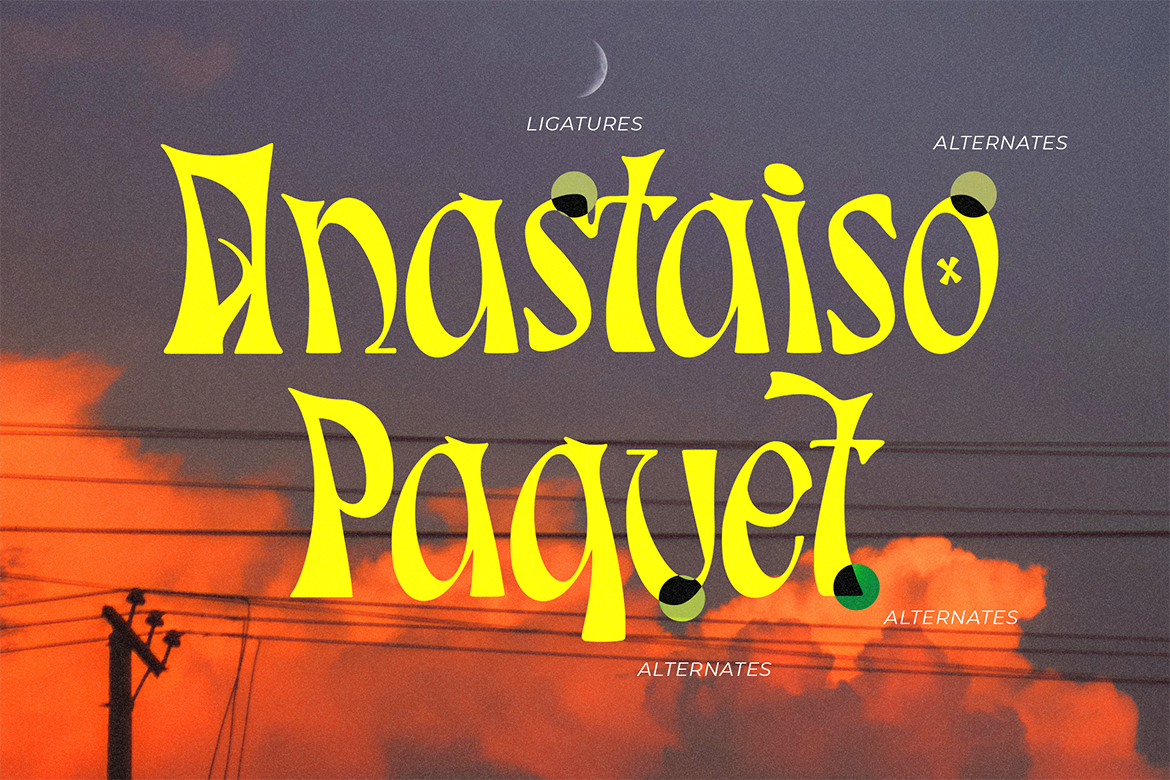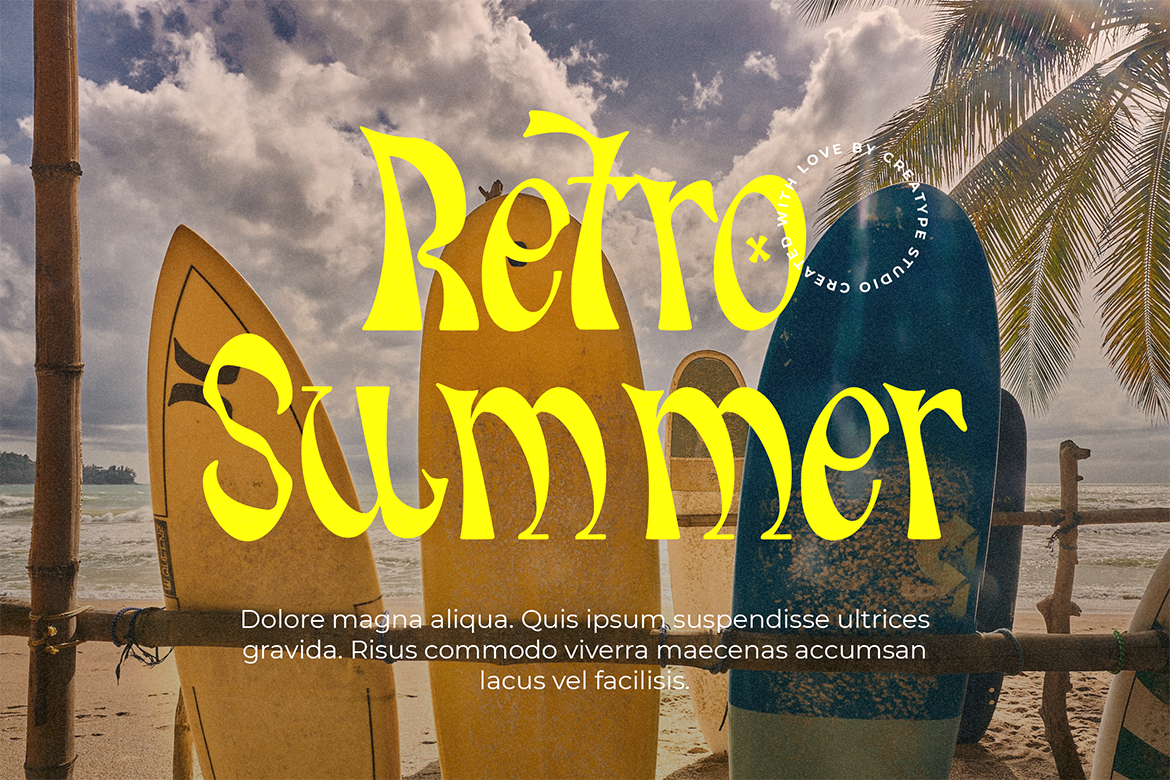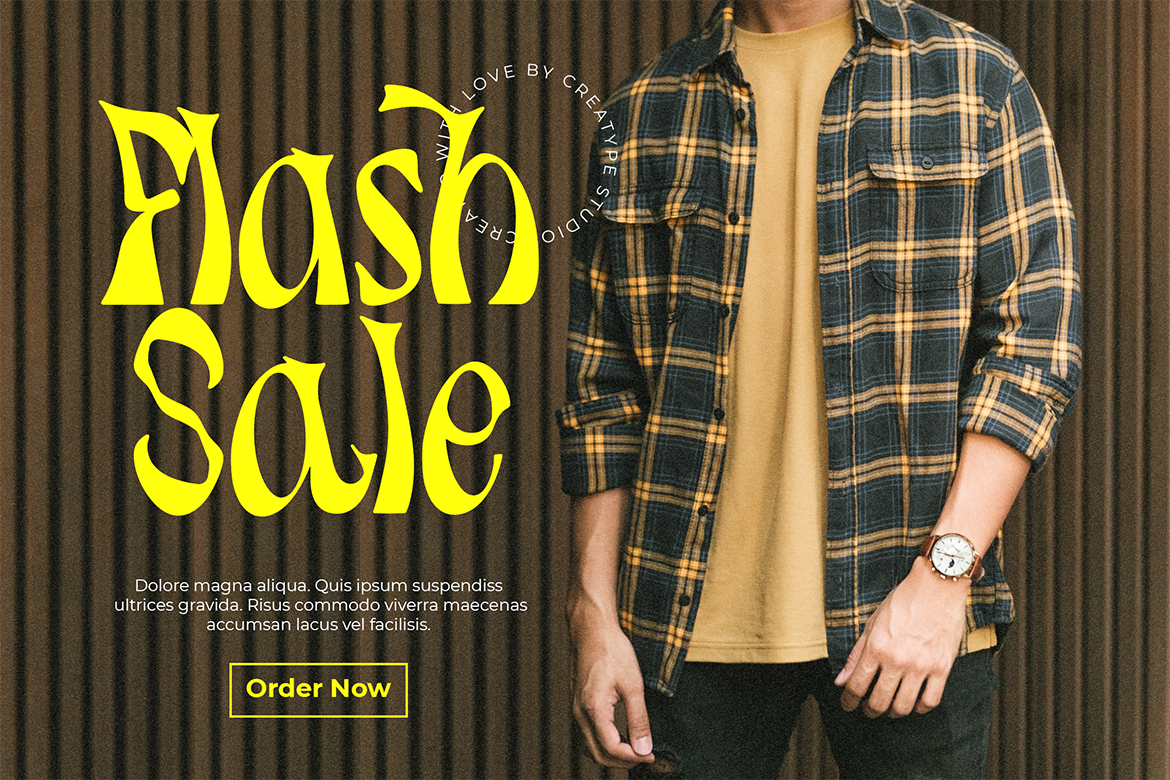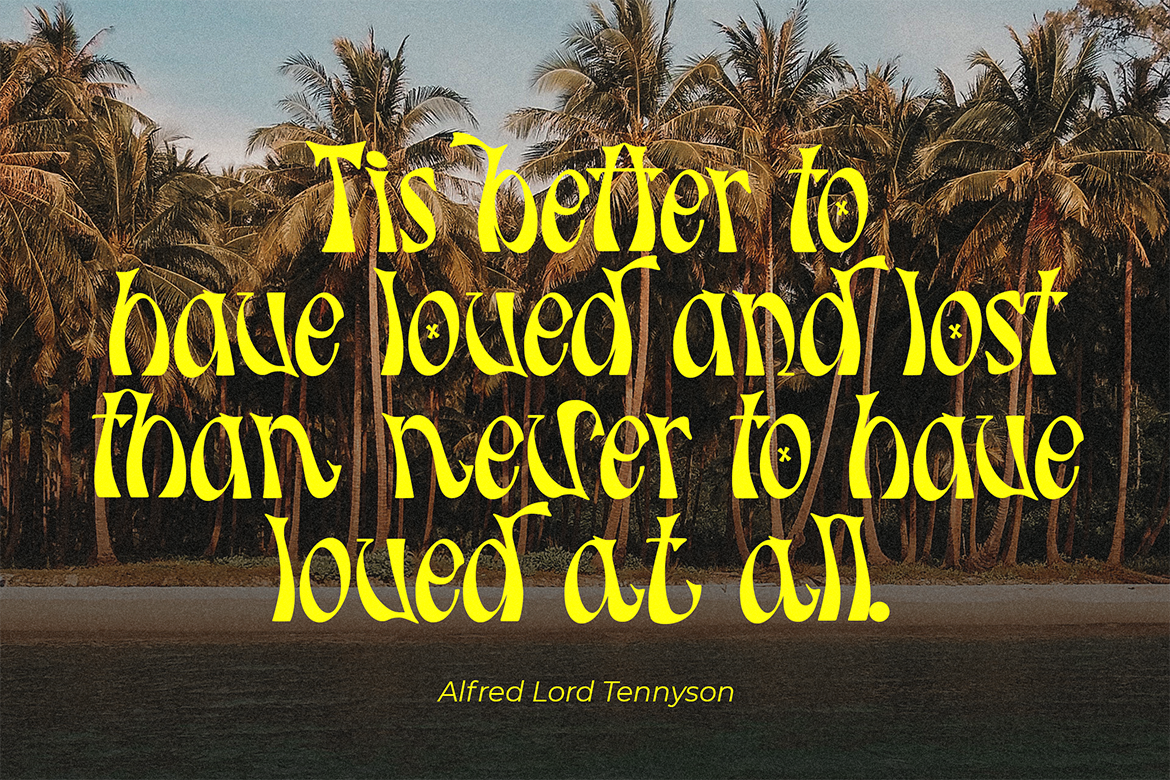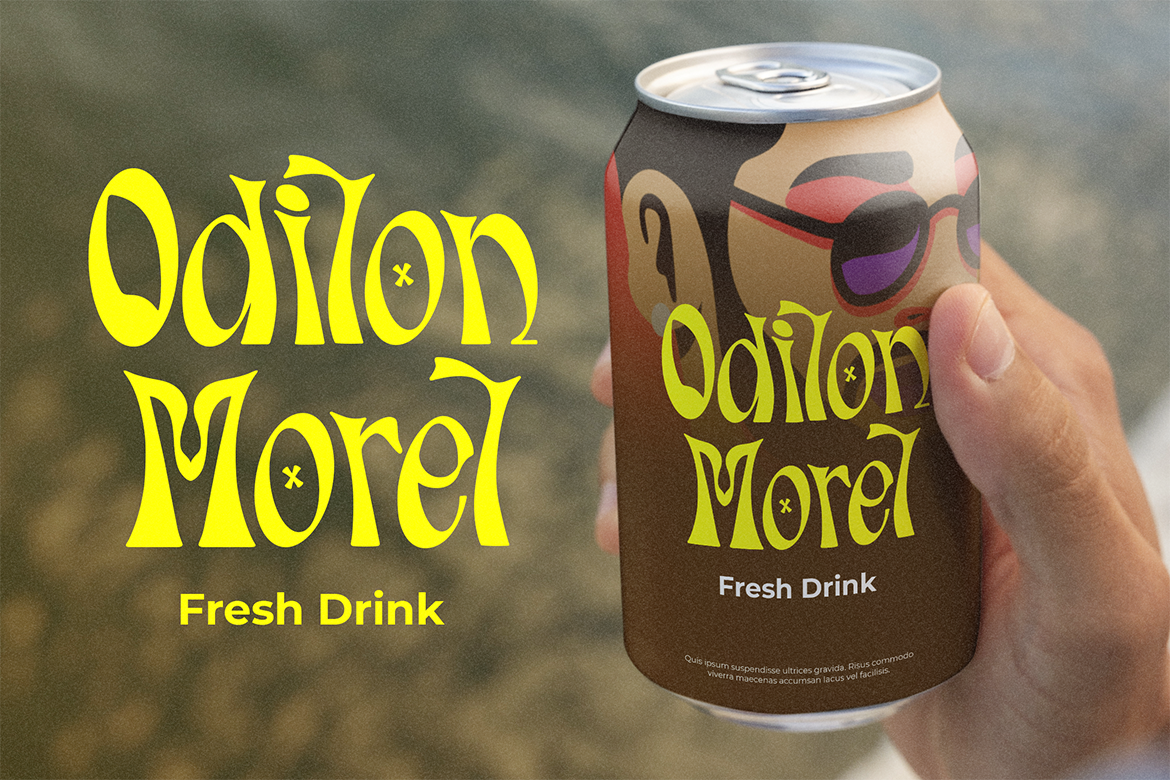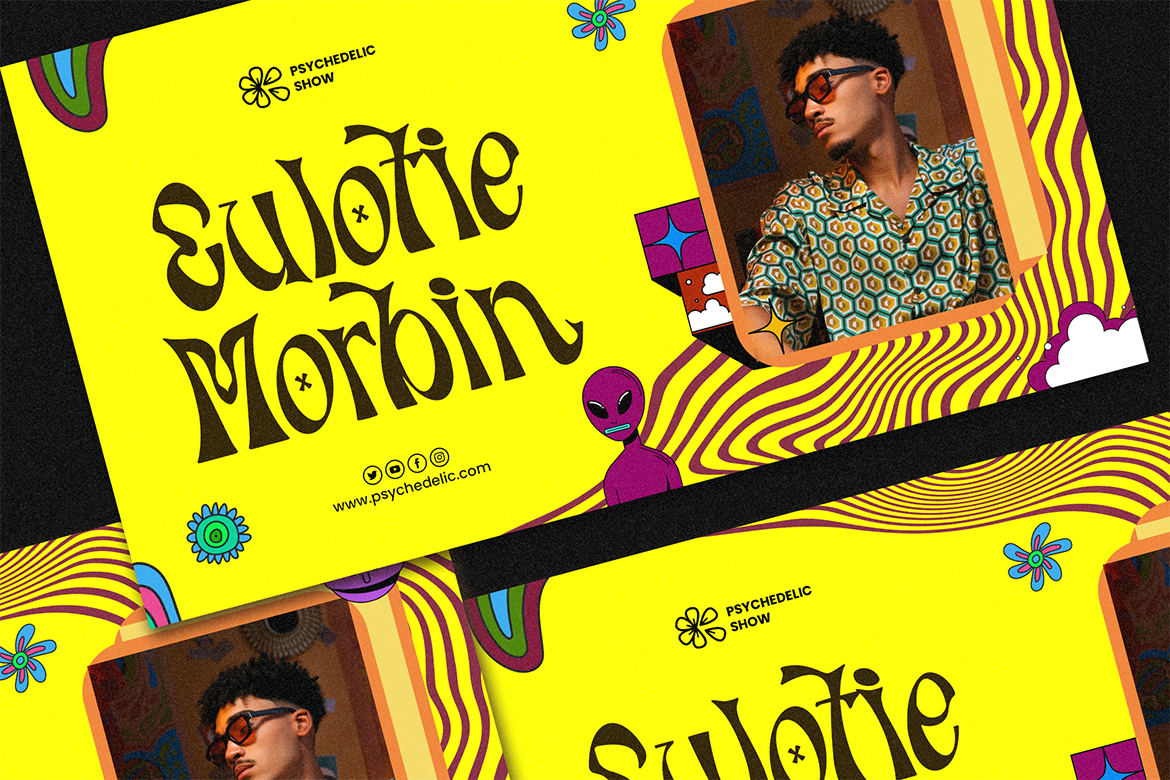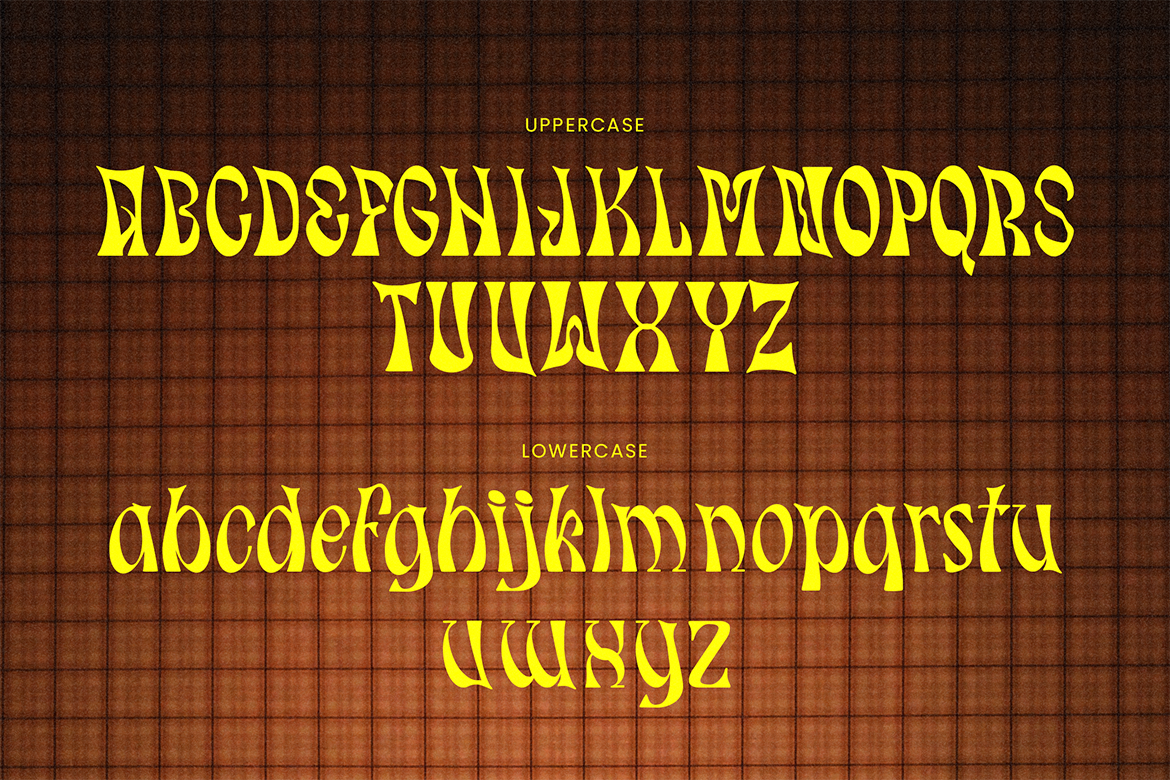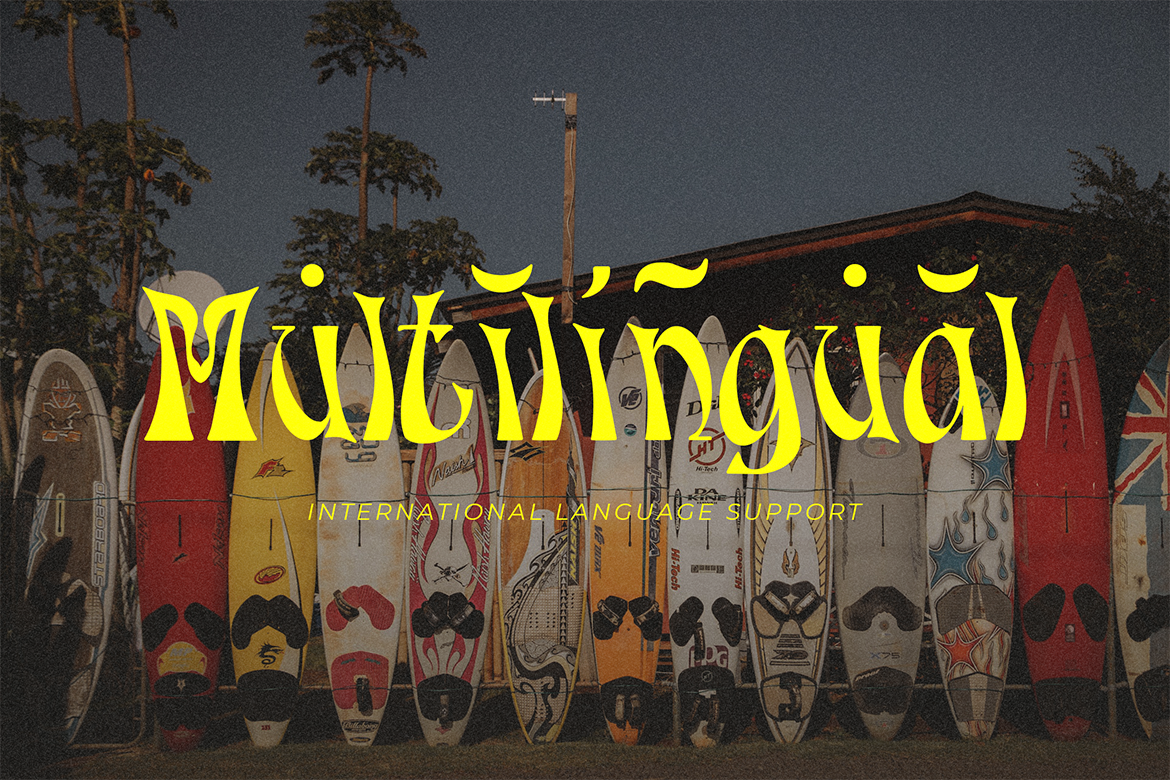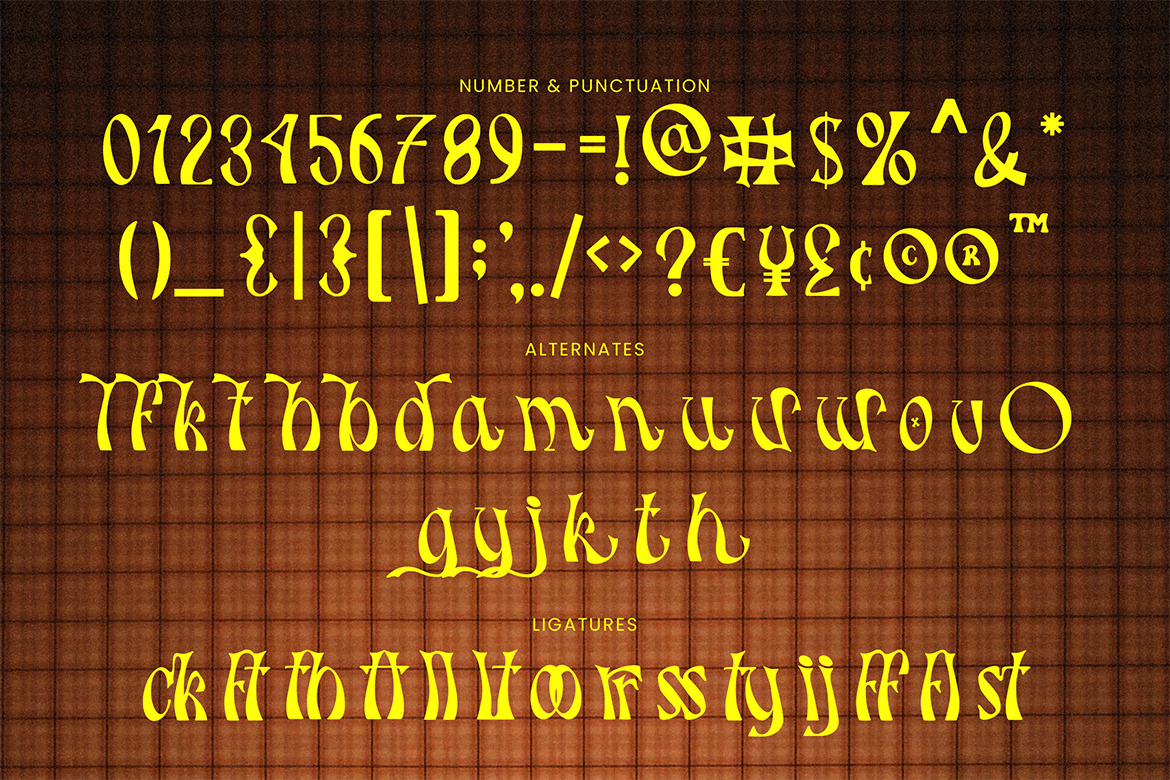
Molland, is a groovy display font that mixes vintage allure with an energetic vibe, making your brand’s messaging resonate with nostalgia.
Molland Retro Display